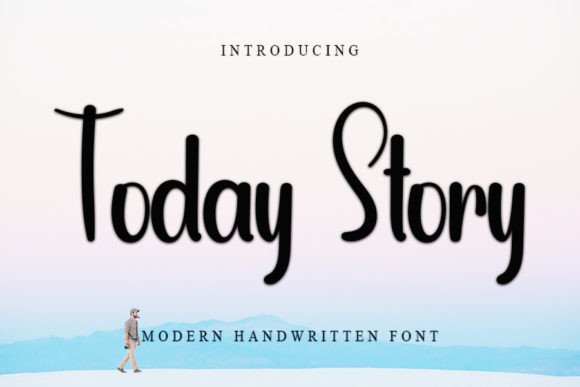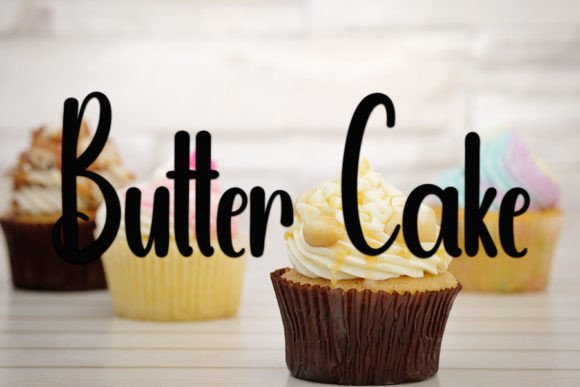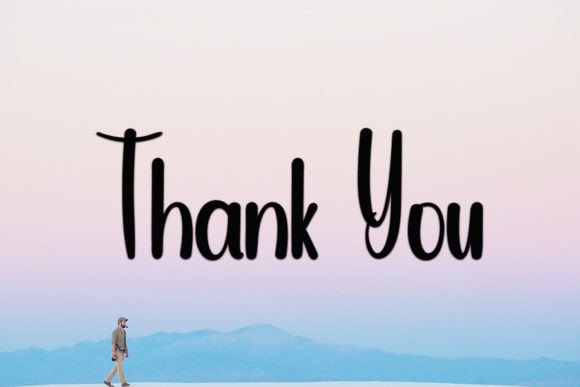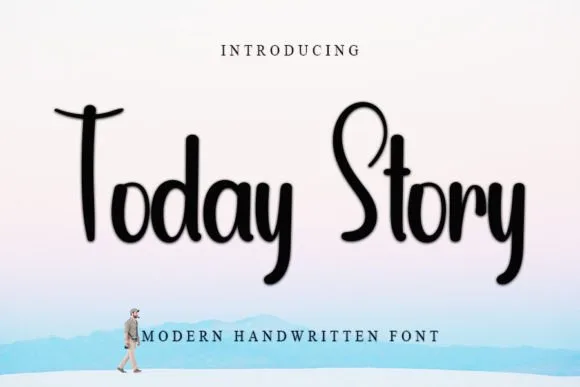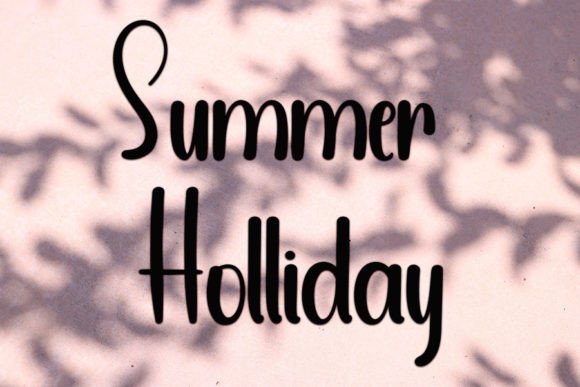
Today Story Font
About Today Story Font
Today Story is a neat and beautiful handwritten font described by an elegant touch, perfect for your favorite projects. Fall in love with its incredibly distinct and timeless style, and use it to create spectacular designs!